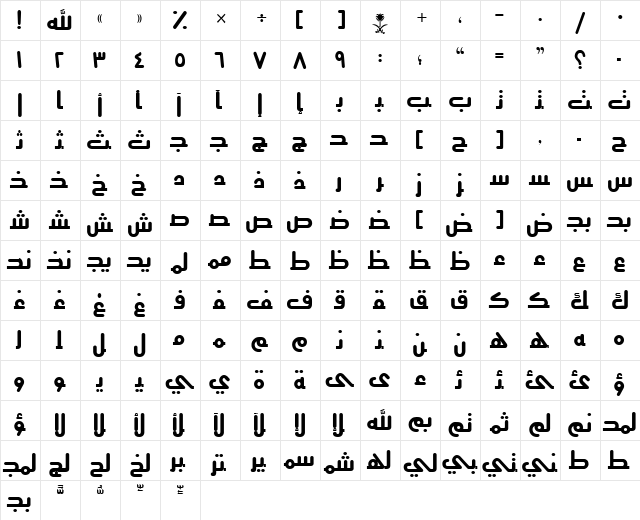
AYM Thghr 3 S_U normal. Normal Font Preview
Design Context for AYM Thghr 3 S_U normal. Typeface
AYM Thghr 3 S_U normal. is a composed and adaptable typeface that performs quietly and consistently across a wide range of design contexts.